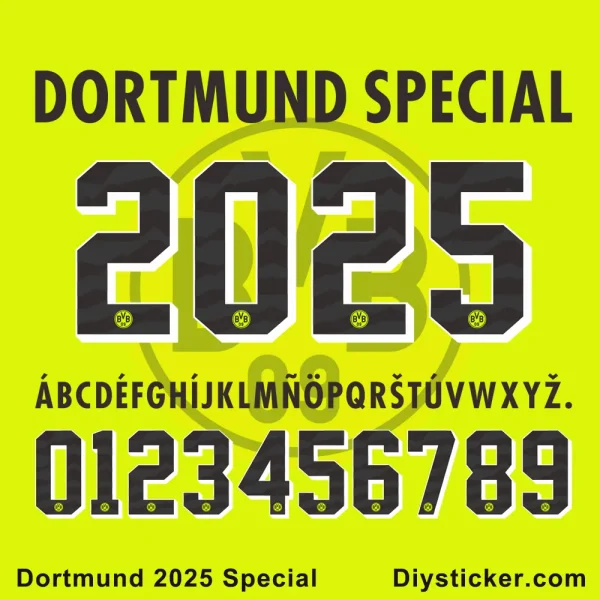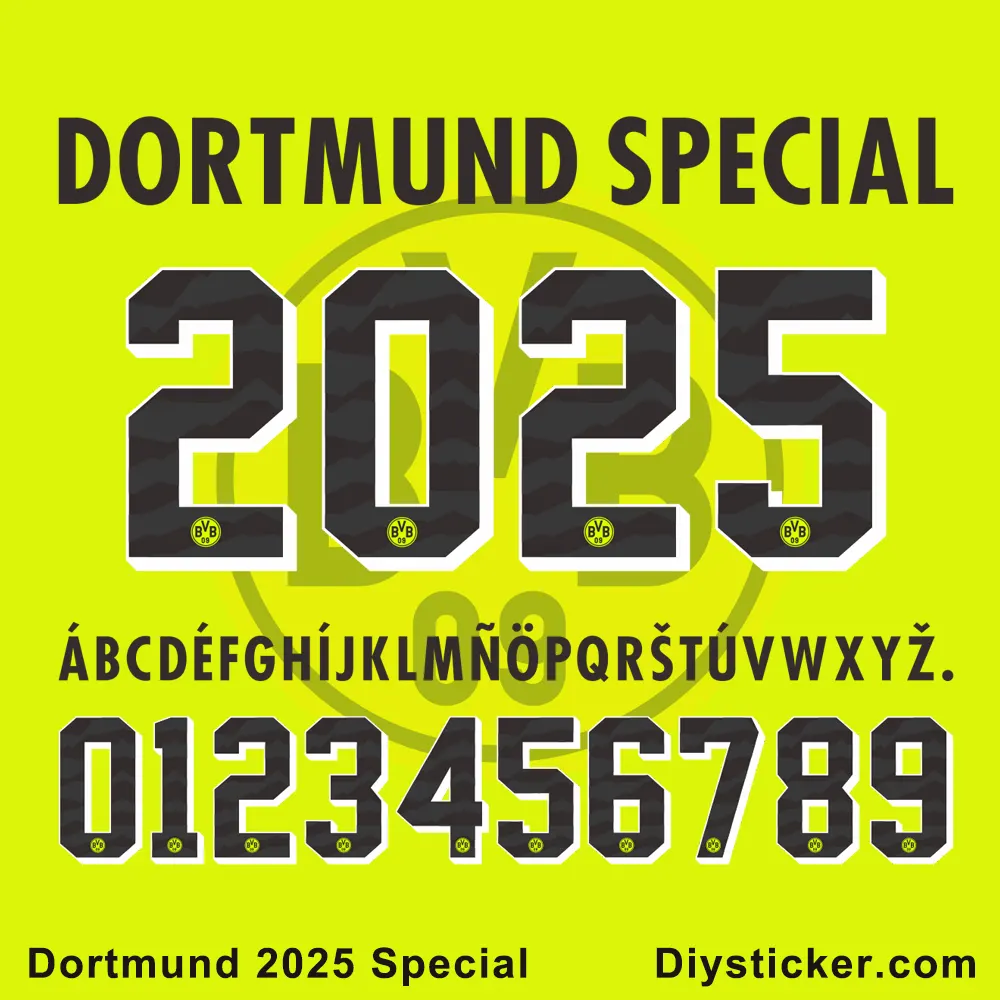
Dortmund 2025 Special Kit Font Download
Elevate your football fandom with the Dortmund 2025 Special Kit Font Download. This premium typography captures the bold spirit of Borussia Dortmund’s iconic 2025 kit design. Perfect for creating custom apparel, fan art, or digital graphics. Instant download, easy to install, and compatible with all major design software.
Dortmund 2025 Special Kit Font Download.
Introducing the Dortmund 2025 Special Kit Font Download – the ultimate typography choice for Borussia Dortmund supporters and design enthusiasts alike. Inspired by the sleek and dynamic design of BVB’s 2025 special kit, this exclusive font brings the energy of the pitch straight to your creative projects.
Whether you’re designing a custom football jersey, crafting standout social media graphics, or building a fan site to celebrate Dortmund’s legacy, this premium font delivers unmatched style and versatility. With clean lines, bold curves, and a modern aesthetic, the Dortmund 2025 font is tailored for football fans who want to stand out.
Exclusive Design: Unique typography inspired by Borussia Dortmund’s 2025 special kit.